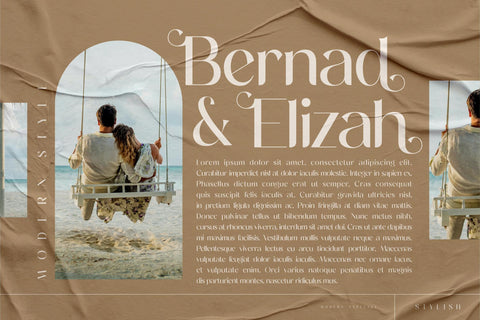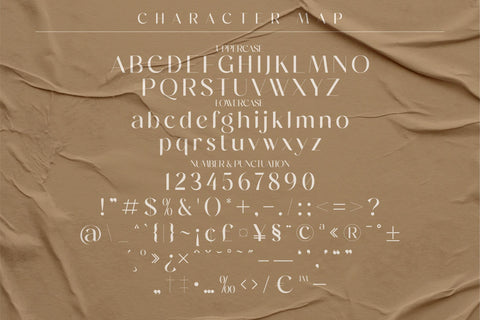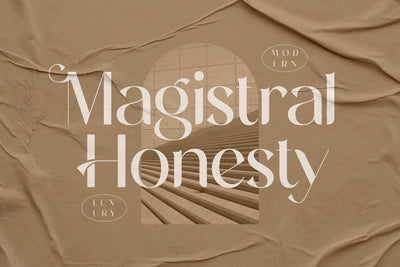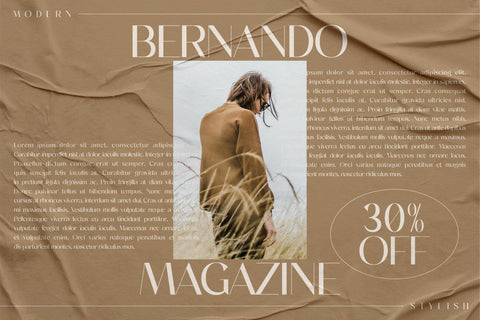
Magistral Honesty Typeface
Proudly present Magistral Honesty Typeface, created by Storytype,
This typeface is perfect for an elegant & luxury logo, book or movie title design, fashion brand,
magazine, clothes, lettering, quotes, and so much more.